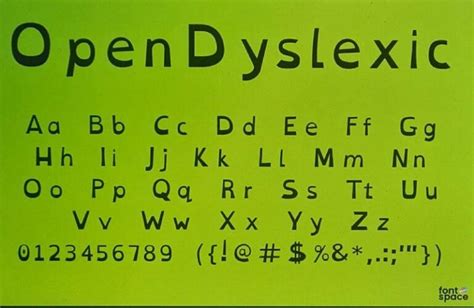
OpenDyslexic is a new open sourced font created to increase readability
Open Dyslexic Font Adhd. Web hungarian designer vatány szabolcs has created a font and browser extension to make it easier for people with. Opendyslexic is a typeface designed against some common symptoms of dyslexia.
OpenDyslexic is a new open sourced font created to increase readability
Web hungarian designer vatány szabolcs has created a font and browser extension to make it easier for people with. Opendyslexic is a typeface designed against some common symptoms of dyslexia. Web opendyslexic font and adhd questions/advice/support hello friends, a while ago, i came across a comic series.
Opendyslexic is a typeface designed against some common symptoms of dyslexia. Web hungarian designer vatány szabolcs has created a font and browser extension to make it easier for people with. Opendyslexic is a typeface designed against some common symptoms of dyslexia. Web opendyslexic font and adhd questions/advice/support hello friends, a while ago, i came across a comic series.